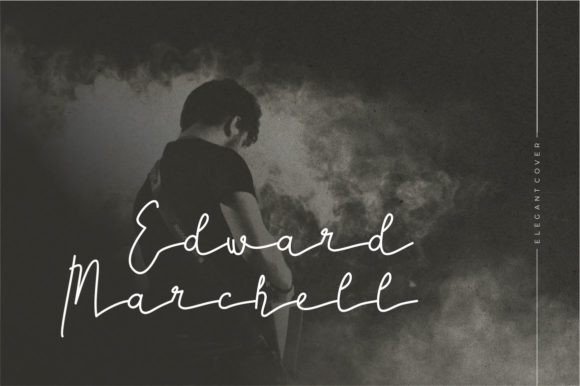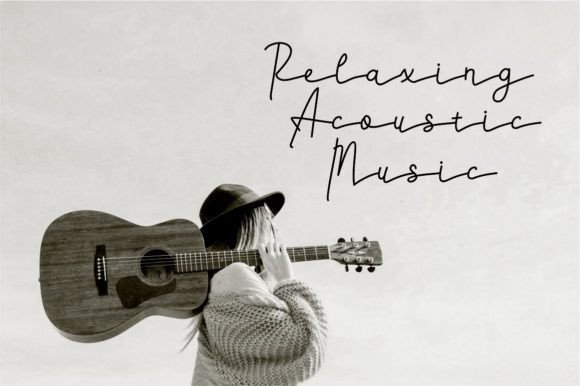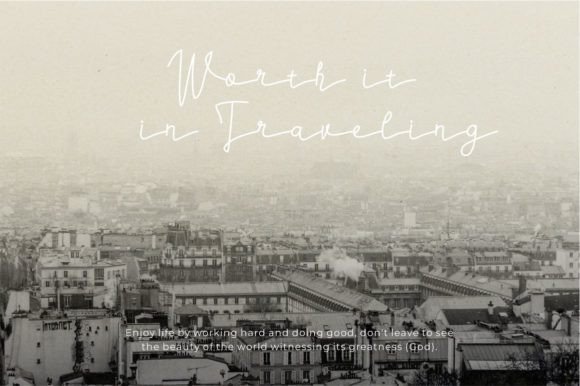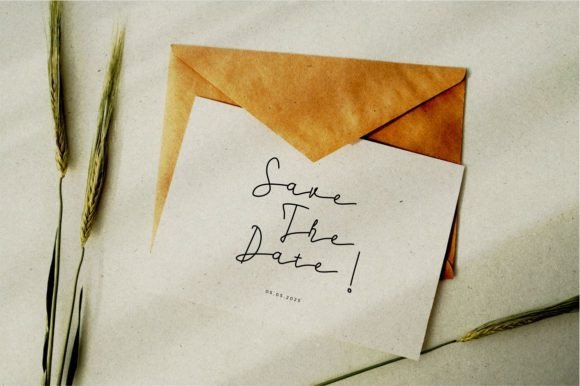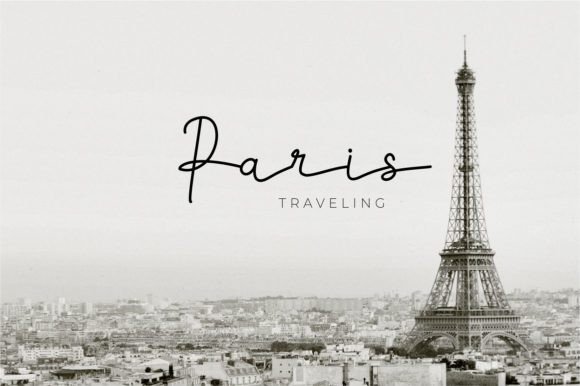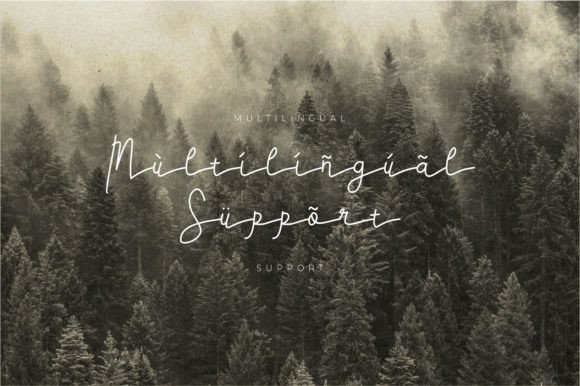
The Elusive Perfect Font: My Encounter with Adelinata
As a designer, I’ve had my fair share of late nights scrolling through font libraries, searching for that one perfect typeface to complete a project. I recall working on a luxury brand campaign, determined to create a visual identity that exuded elegance and sophistication. My client was adamant about achieving a high-end look, and I knew the right font was crucial. That’s when I stumbled upon Adelinata, a stylish and elegant elongated script font that instantly caught my eye.
Adelinata: A Stylish and Elegant Script Font
Adelinata is specially designed for luxury, elegant, feminine projects, making it perfectly suitable for creating modern, chic designs. This font is a gem, and I’m excited to share my experience with you.
What I Love About Adelinata ✨
- 💃 Elegant and sophisticated design, perfect for luxury brands
- 🌟 Beautifully crafted swashes and flourishes add a touch of elegance
- 📈 Versatile and adaptable to various design projects
- 😐 Limited availability of bold weights, which might not be ideal for all designs
The Story Behind Adelinata
Adelinata was designed by a team of typographers who aimed to create a font that embodied the essence of luxury and elegance. Inspired by classic calligraphy and modern script fonts, Adelinata was crafted to provide designers with a versatile and sophisticated typeface for their creative projects.
Q: What is Adelinata font best used for?
A: Adelinata is best used for luxury, elegant, and feminine projects, such as branding, packaging, and high-end advertising.
Q: Does Adelinata support OpenType features?
A: Yes, Adelinata supports OpenType features, including swashes, stylistic alternates, and glyphs.